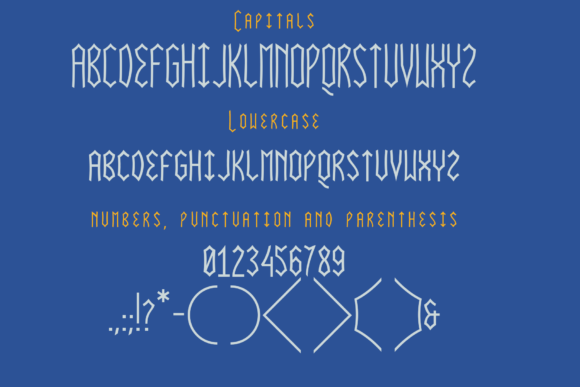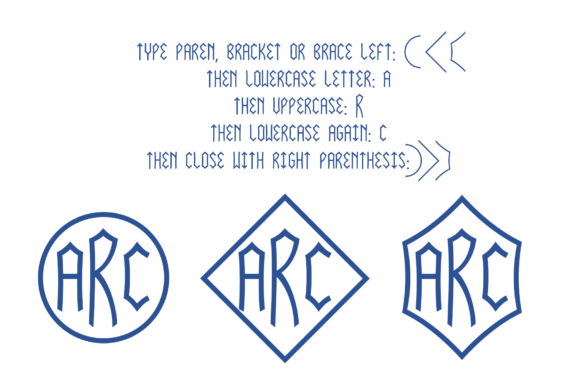
Introducing Arc Font: A Simple yet Stylish Display Font for Crafters and Designers
In the world of typography, fonts play a crucial role in conveying messages, expressing emotions, and adding aesthetic appeal to designs. For crafters and designers, finding the right font can make all the difference in creating visually stunning and effective designs. If you’re on the hunt for a font that exudes simplicity, elegance, and versatility, look no further than Arc Font. In this article, we’ll dive into the world of Arc Font, exploring its features, benefits, and uses, as well as provide tips on how to make the most of this beautiful display font.
What is Arc Font?
Arc Font, also known as Arc Monogram, is a simplistic yet stylish display font designed to elevate your craft designs. With its clean lines, smooth curves, and effortless charm, Arc Font is perfect for designers and crafters seeking a modern and sophisticated look. This font is incredibly easy to use, making it accessible to creatives of all skill levels.
Key Features of Arc Font
• Simplicity: Arc Font boasts a clean and minimalist design, making it perfect for designs that require a subtle yet impactful touch.
• Elegance: The font’s smooth curves and flowing lines add an air of sophistication, making it ideal for high-end designs, branding, and marketing materials.
• Versatility: Arc Font can be used in a wide range of design applications, from digital projects to print materials, and even handmade crafts.
• Easy to Use: This font is incredibly user-friendly, allowing you to focus on your design rather than struggling with complicated typography.
Benefits of Using Arc Font
So, why choose Arc Font for your design projects? Here are just a few benefits of using this beautiful display font:
• Instant Visual Impact: Arc Font’s unique design makes it stand out from the crowd, adding an instant touch of elegance and sophistication to your designs.
• Flexibility: This font can be used in a variety of design contexts, from logos and branding to social media graphics, posters, and more.
• Time-Saving: With Arc Font, you can create stunning designs quickly and efficiently, thanks to its easy-to-use nature and versatility.
Tips for Using Arc Font
To get the most out of Arc Font, here are some expert tips to keep in mind:
• Mix and Match: Combine Arc Font with other fonts, textures, and design elements to create visually interesting and dynamic designs.
• Experiment with Colors: Arc Font looks stunning in a range of colors, from bold and bright to soft and pastel. Don’t be afraid to experiment and find the perfect hue for your design.
• Play with Size: Arc Font can be used in a variety of sizes, from large and bold to small and delicate. Experiment with different sizes to add visual interest to your design.
Perfect for Crafters and Designers
Arc Font is a perfect fit for crafters and designers who want to add a touch of elegance and sophistication to their work. Whether you’re creating handmade cards, designing social media graphics, or crafting beautiful branding materials, Arc Font is the perfect choice.
From DIY enthusiasts to professional designers, Arc Font is an excellent addition to any creative toolkit. Its simplicity, elegance, and versatility make it an excellent choice for a wide range of design applications.
Font Name Arc Font
Author rbfonts
In conclusion, Arc Font is a beautiful and versatile display font that’s perfect for crafters and designers seeking a simple yet stylish look. With its clean lines, smooth curves, and effortless charm, Arc Font is sure to elevate your designs and add a touch of elegance to your work. So why not give Arc Font a try today and see the difference it can make in your designs?